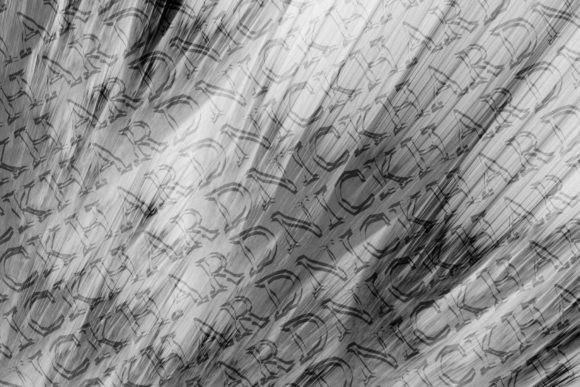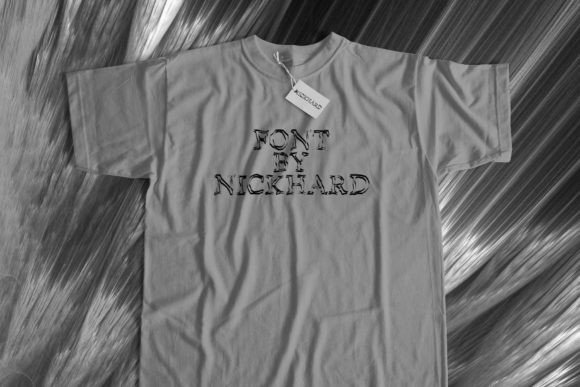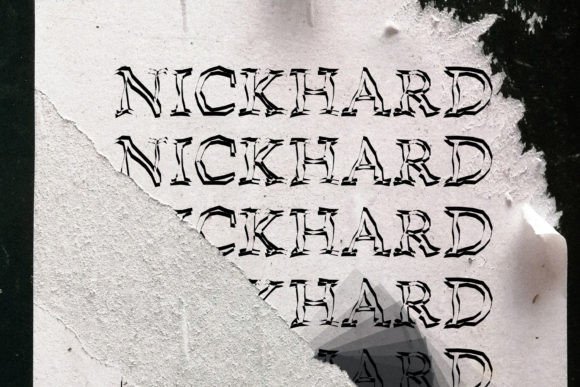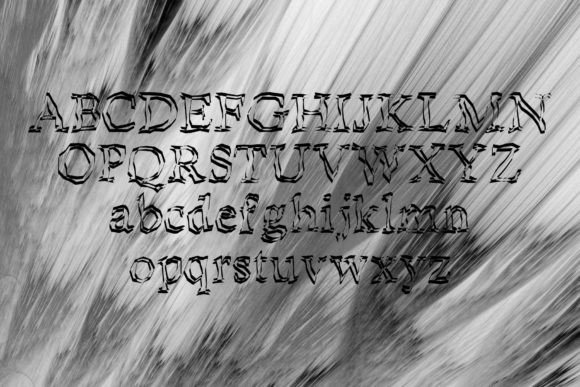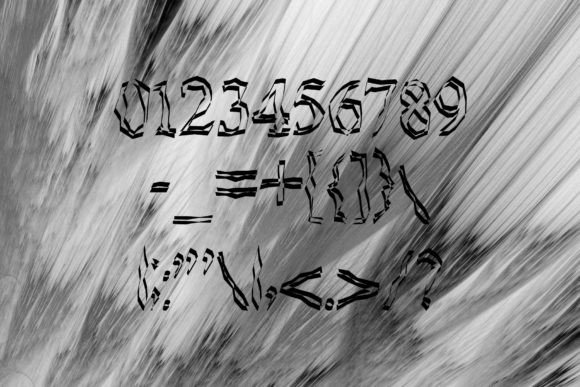
The Branline Font: A Quirky Horror-Style Display Font for Your Designs
I’ll never forget the time I was working on a Halloween-themed project for a client, and I just couldn’t find the right font to capture the spooky yet playful vibe I was going for. That was until I stumbled upon the Branline font. Its unique, horror-style display was exactly what I needed to bring my design to life. In this article, I’ll share my experience with Branline, its features, and how to make the most of it in your designs.
My Honest Review of Branline
Here’s what I love about Branline:
- ✨ Unique and quirky design that’s perfect for horror-themed or playful projects
- ✅ Highly legible, even in larger sizes
- 💡 Great for headlines, titles, and short phrases
- 🎃 Perfect for Halloween, Gothic, or spooky-themed designs
However, there are a few small quirks to keep in mind:
- 🤔 May not be suitable for body text or longer paragraphs due to its display nature
- ⚠️ Limited use of OpenType features, but still offers some great stylistic alternates
The Backstory of Branline
Branline was designed by a talented typographer who’s passionate about creating unique and quirky fonts. The font’s inspiration comes from classic horror movies, Gothic architecture, and spooky folklore. The designer wanted to create a font that would capture the essence of Halloween and the supernatural, while still being legible and easy to use.
| Q: What type of projects is Branline best suited for? | A: Branline is perfect for horror-themed, Gothic, or spooky designs, such as Halloween projects, haunted house promotions, or creepy invitations. |
| Q: Can I use Branline for body text or longer paragraphs? | A: While Branline is highly legible, it’s primarily designed as a display font. It’s best used for headlines, titles, and short phrases. |
| Q: Does Branline offer OpenType features? | A: Yes, Branline offers some great OpenType features, including stylistic alternates and glyphs. These features allow you to customize your text and add more character to your designs. |